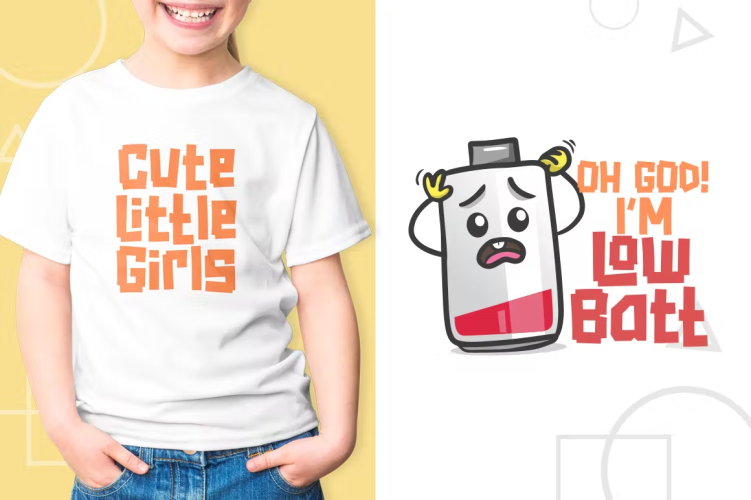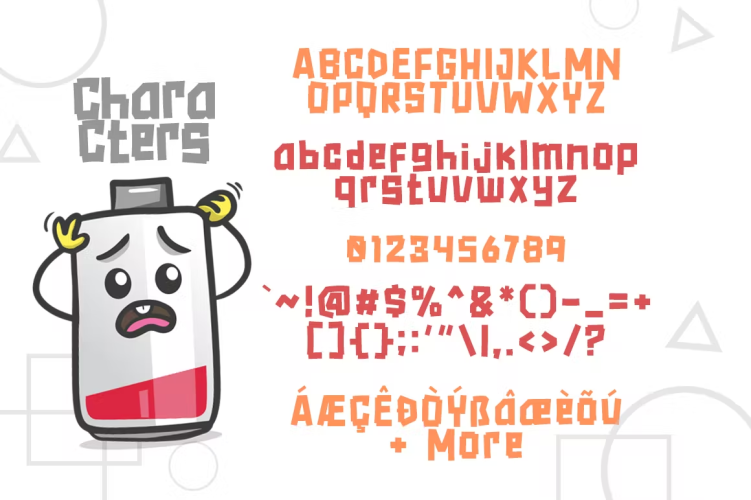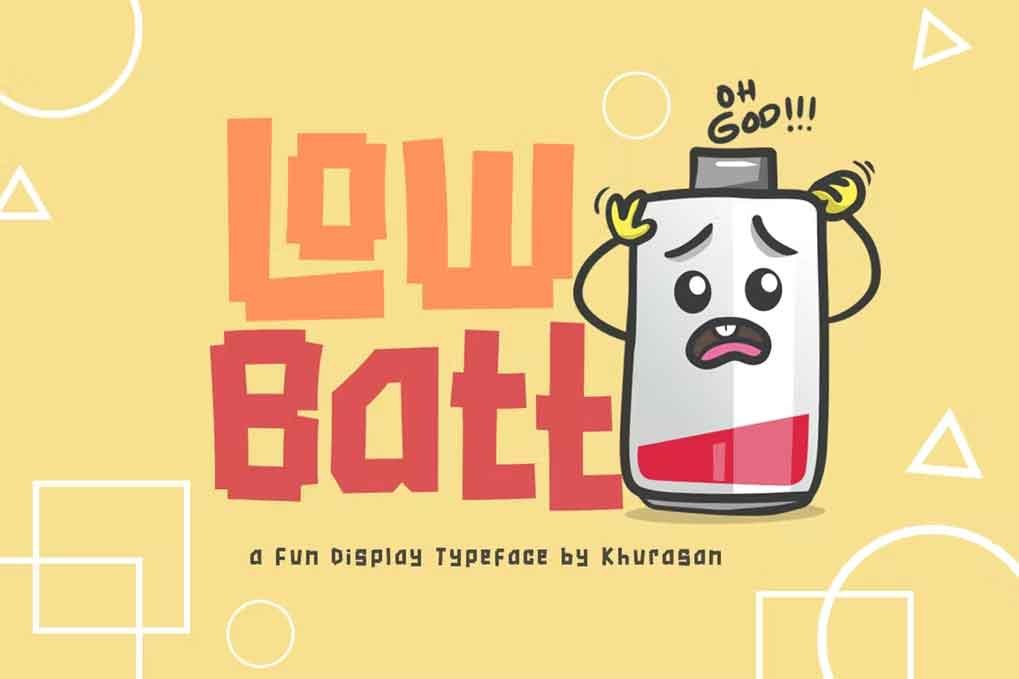
Low Batt Font
The Low Batt is a fun display font, fresh & modern style. Low Batt Font suitable for logo, branding, greeting card, poster and any design that you create.
Khurasan
Where Low Batt Font works best
Low Batt Font keeps its shape at 14 and 16 pixels, which is where interface text actually lives. Numbers and capitals stay distinguishable in tables.
Presentations are read at a distance; a clean sans with a strong bold is the safest hierarchy you can build in a hurry.
Simple letterforms survive angles, glare and movement, so Low Batt Font suits door signs, menus boards and exhibition panels.
What kind of work does Low Batt Font suit?
It sits in the Sans Serif Fonts group and reads as branding, display, modern, sans serif. That makes it a candidate wherever those qualities help: headings, packaging, social graphics and brand work. Set it at the size you plan to use before deciding.